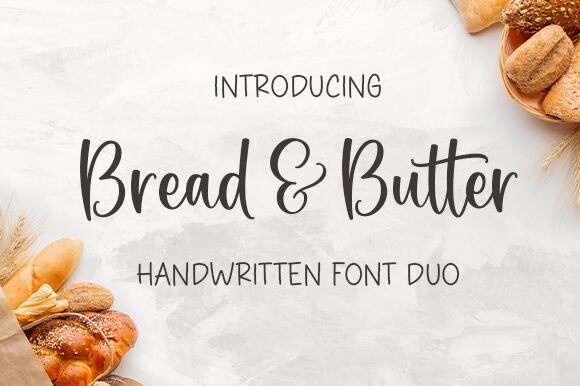
Butter
Experience the charm of 'Butter,' a handwritten block font crafted by Graphix Line Studio. With its all-caps, semi-light design, Butter infuses a touch of personality into every word.
Its playful yet structured style makes it perfect for branding, packaging, and social media graphics that demand a friendly and approachable vibe. Versatile in its simplicity, Butter is designed to bring your creative projects to life with an authentic handcrafted feel that stands out in the digital landscape.
Elevate your designs with this unique typographic treasure that effortlessly blends casual elegance with modern flair.